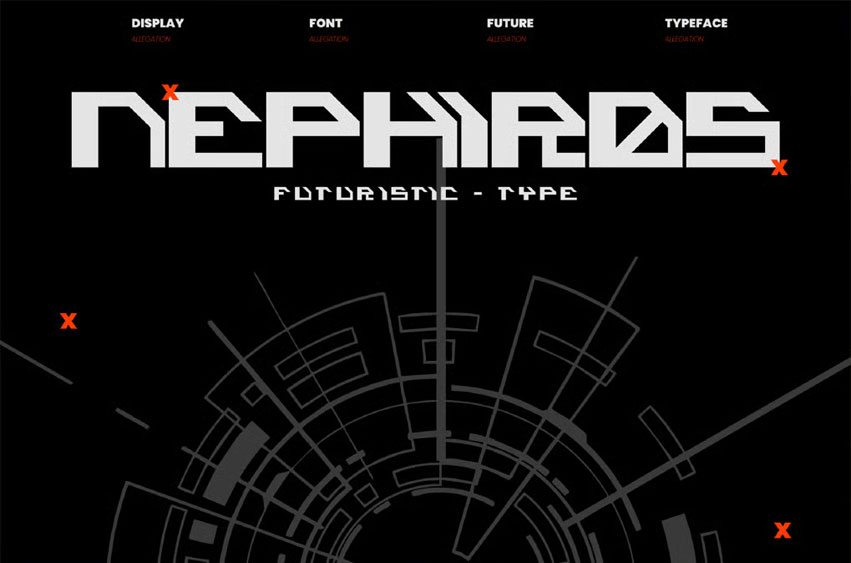
Nephiros Font
Nephiros Font is a futuristic font that radiates mystique and power. Its flowing lines and sharp contours merge the elegance of the unknown, the precision of advanced design.
Every curve feels like energy in motion, part celestial, part digital.